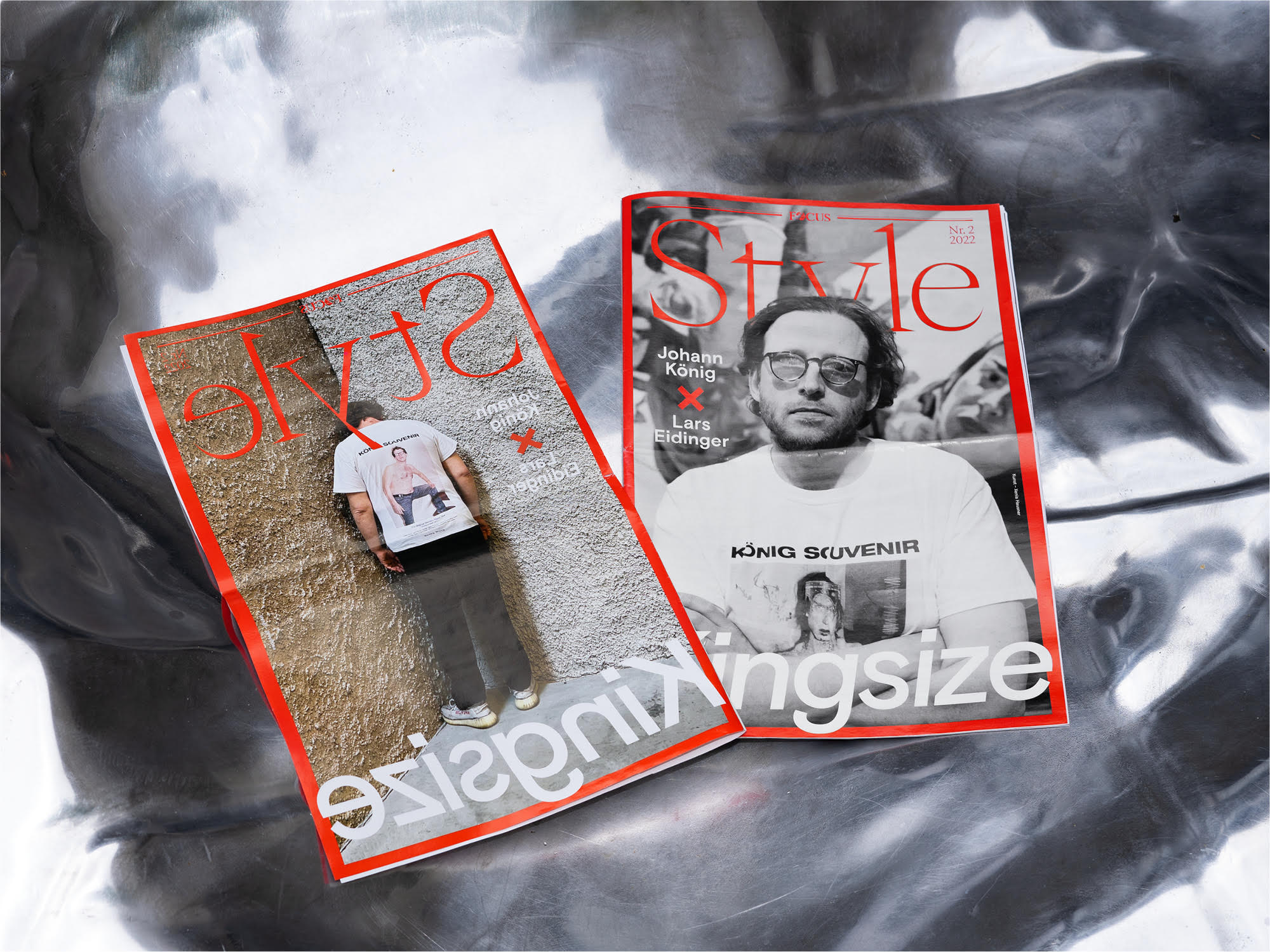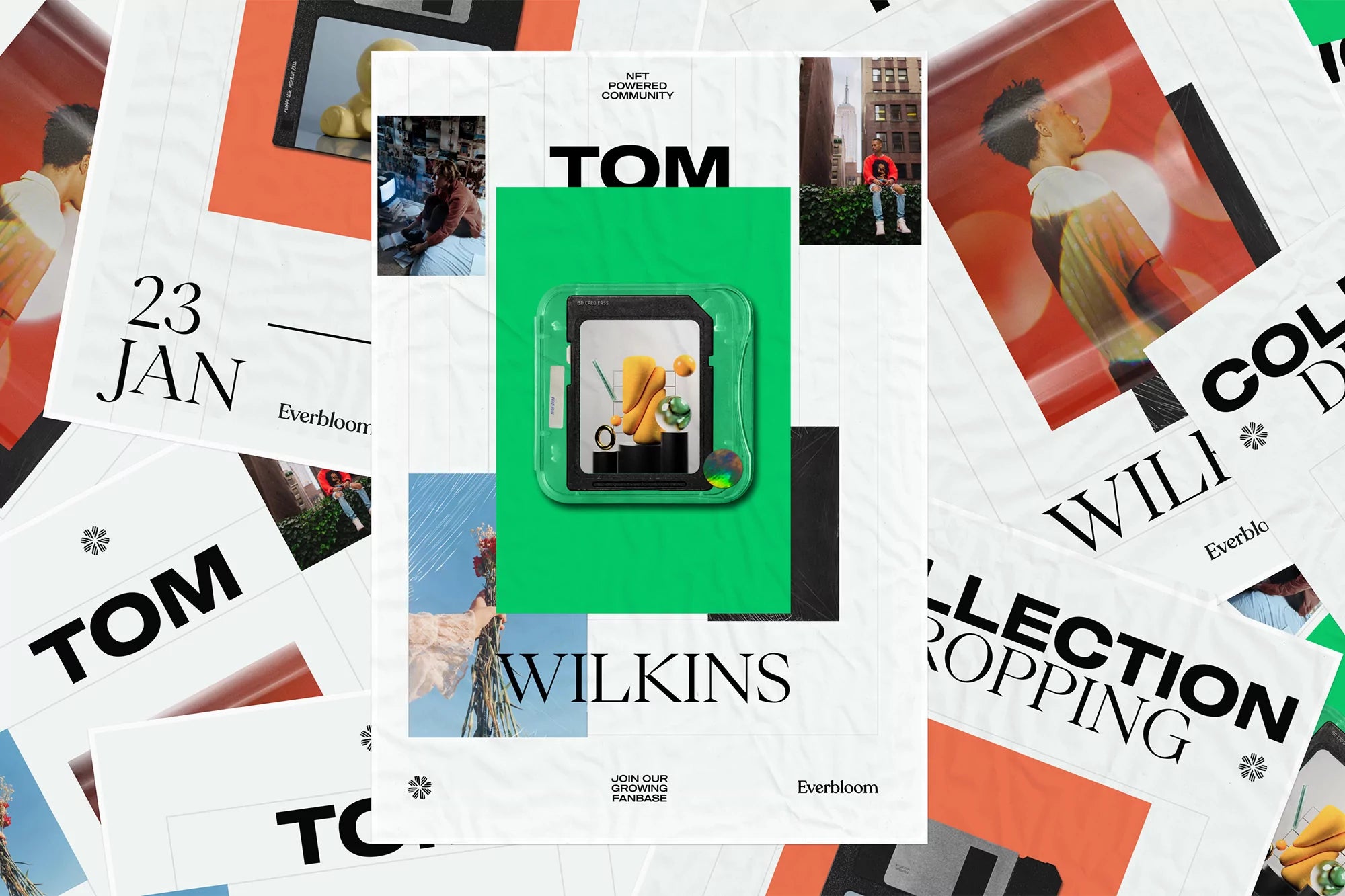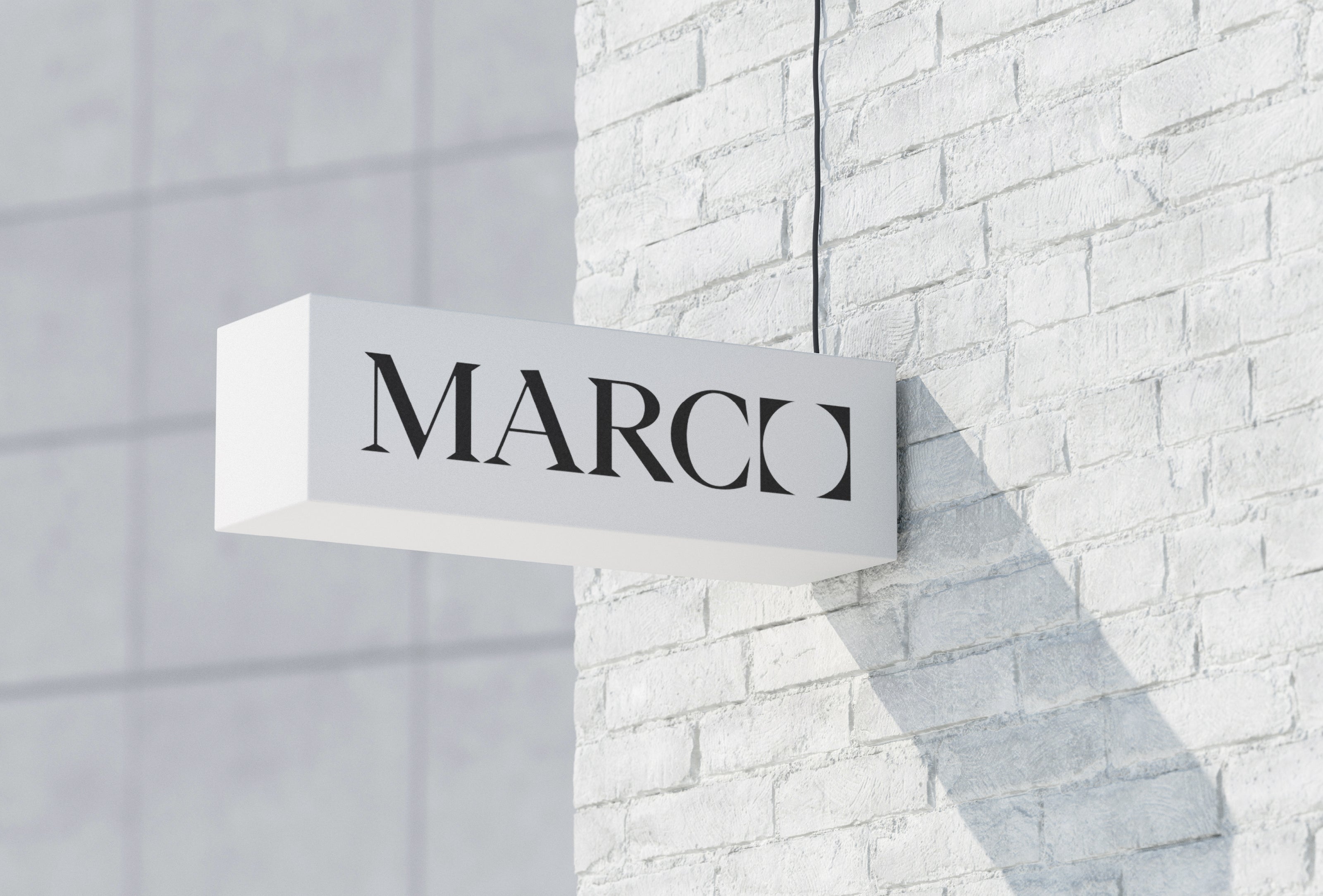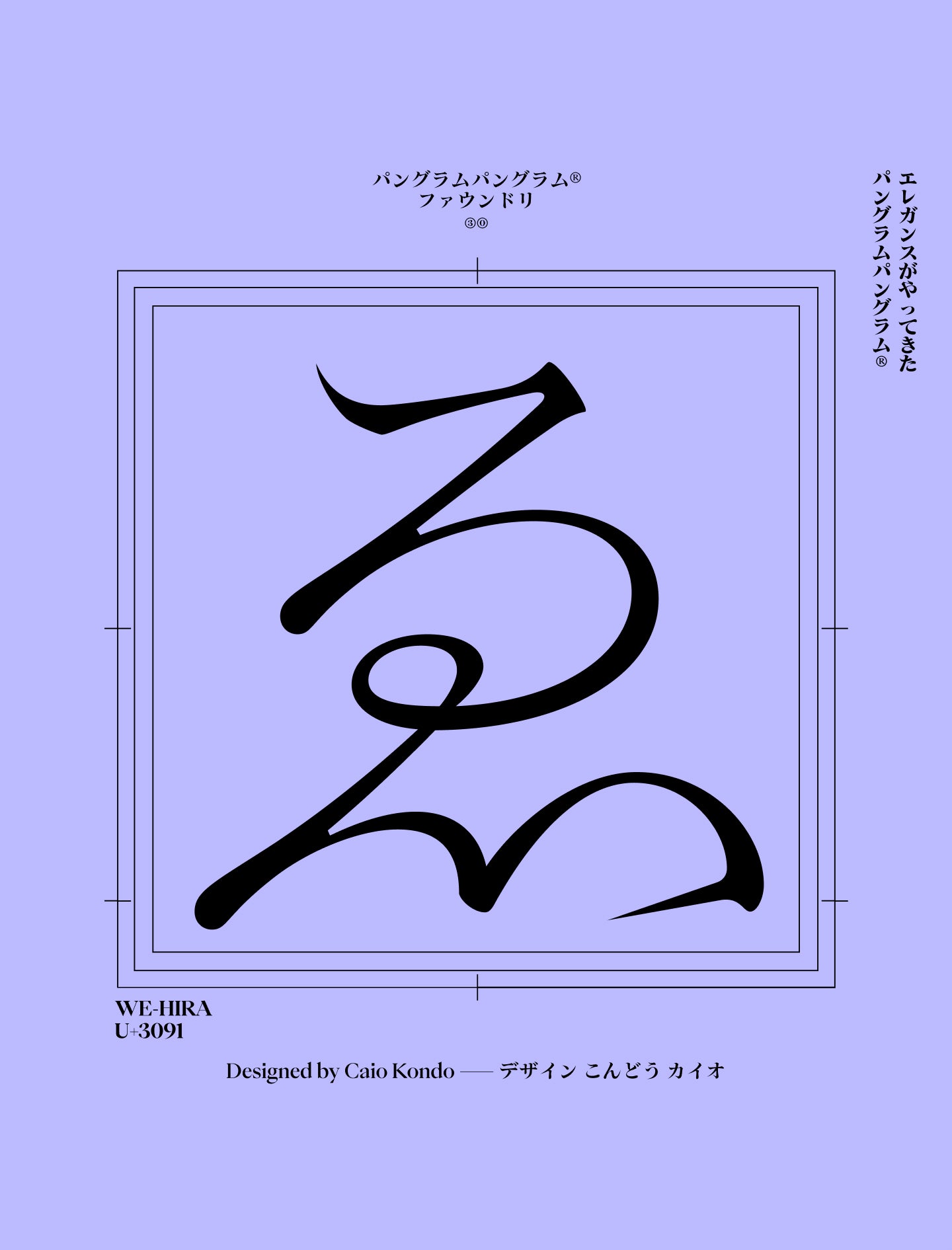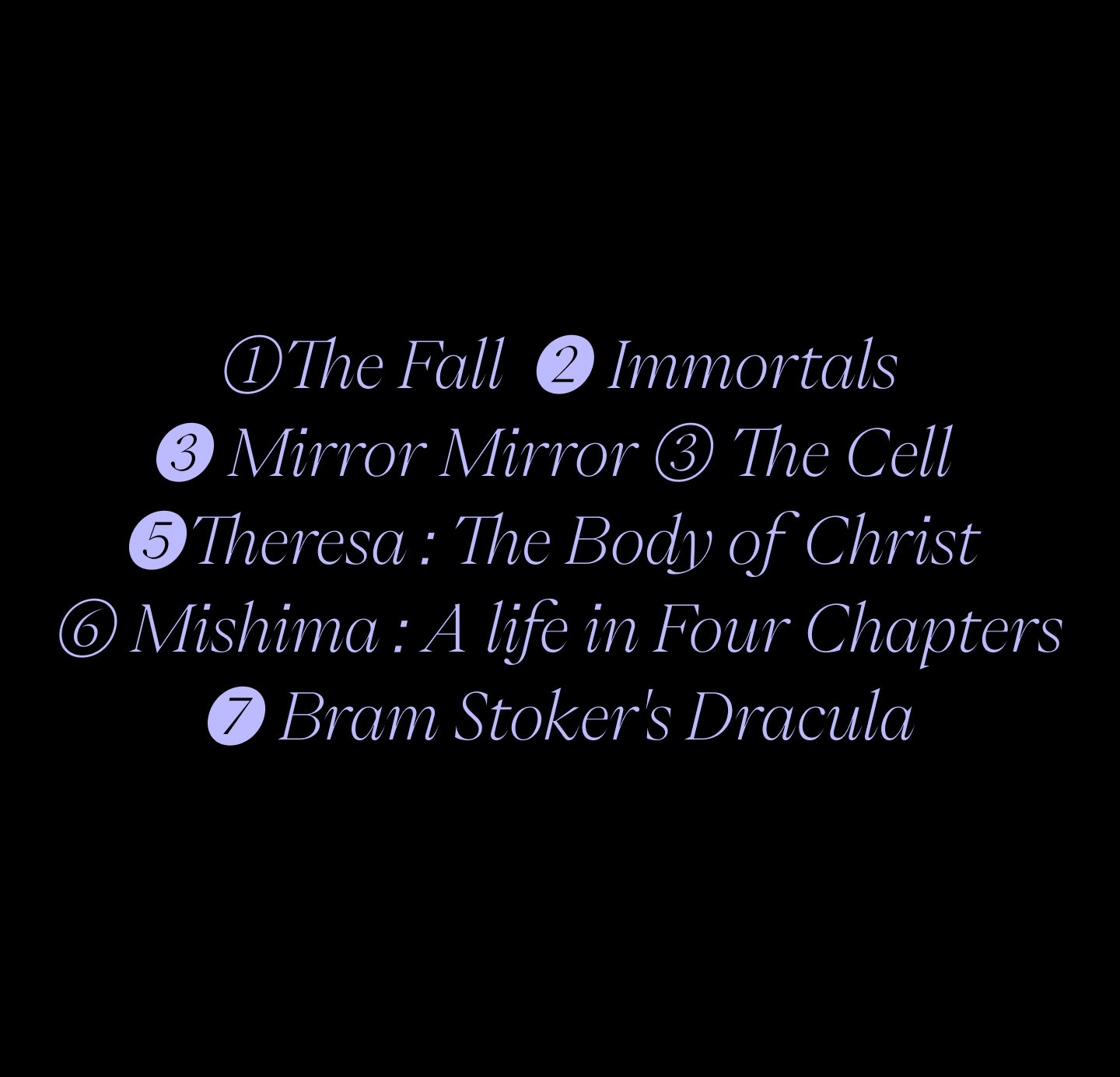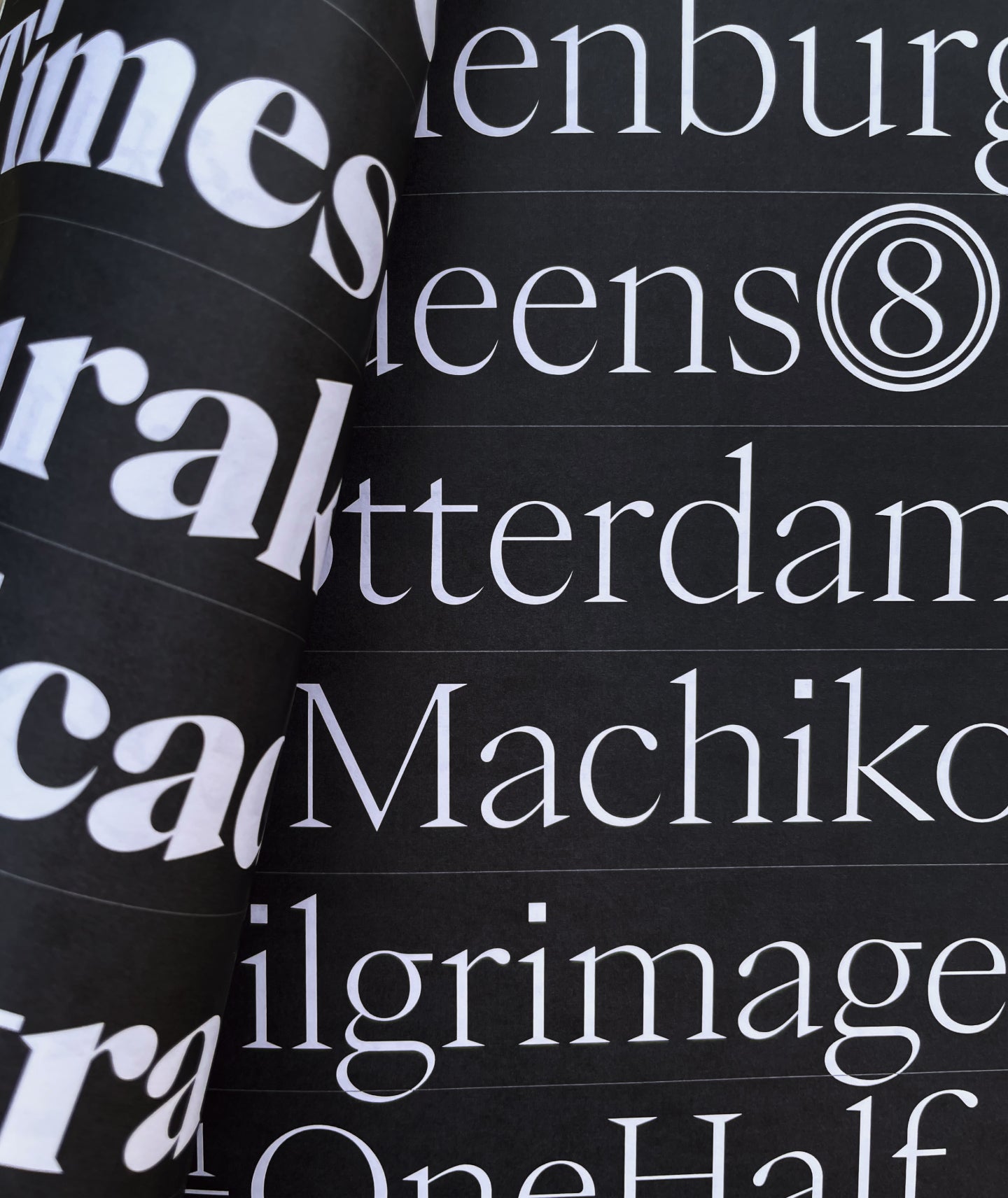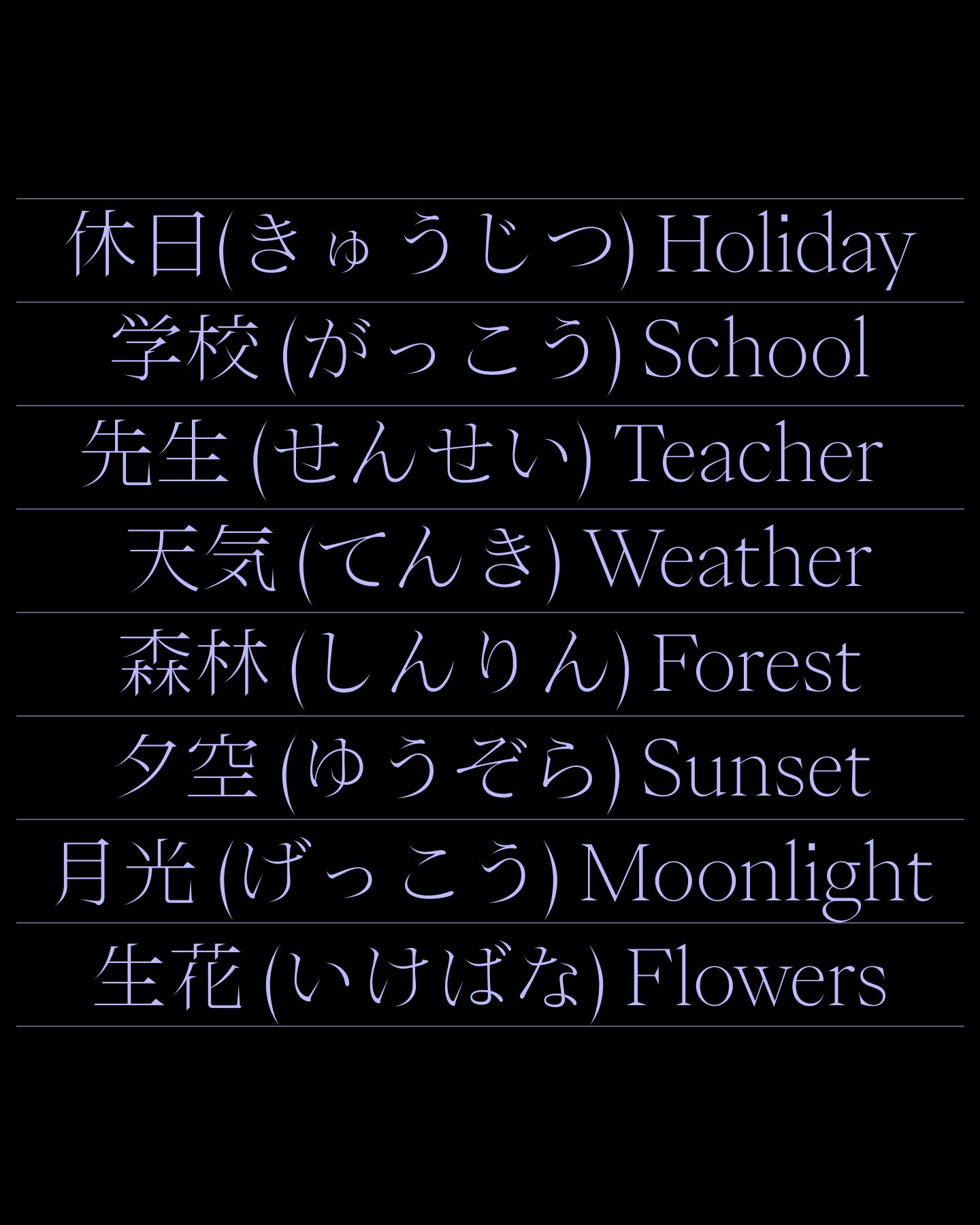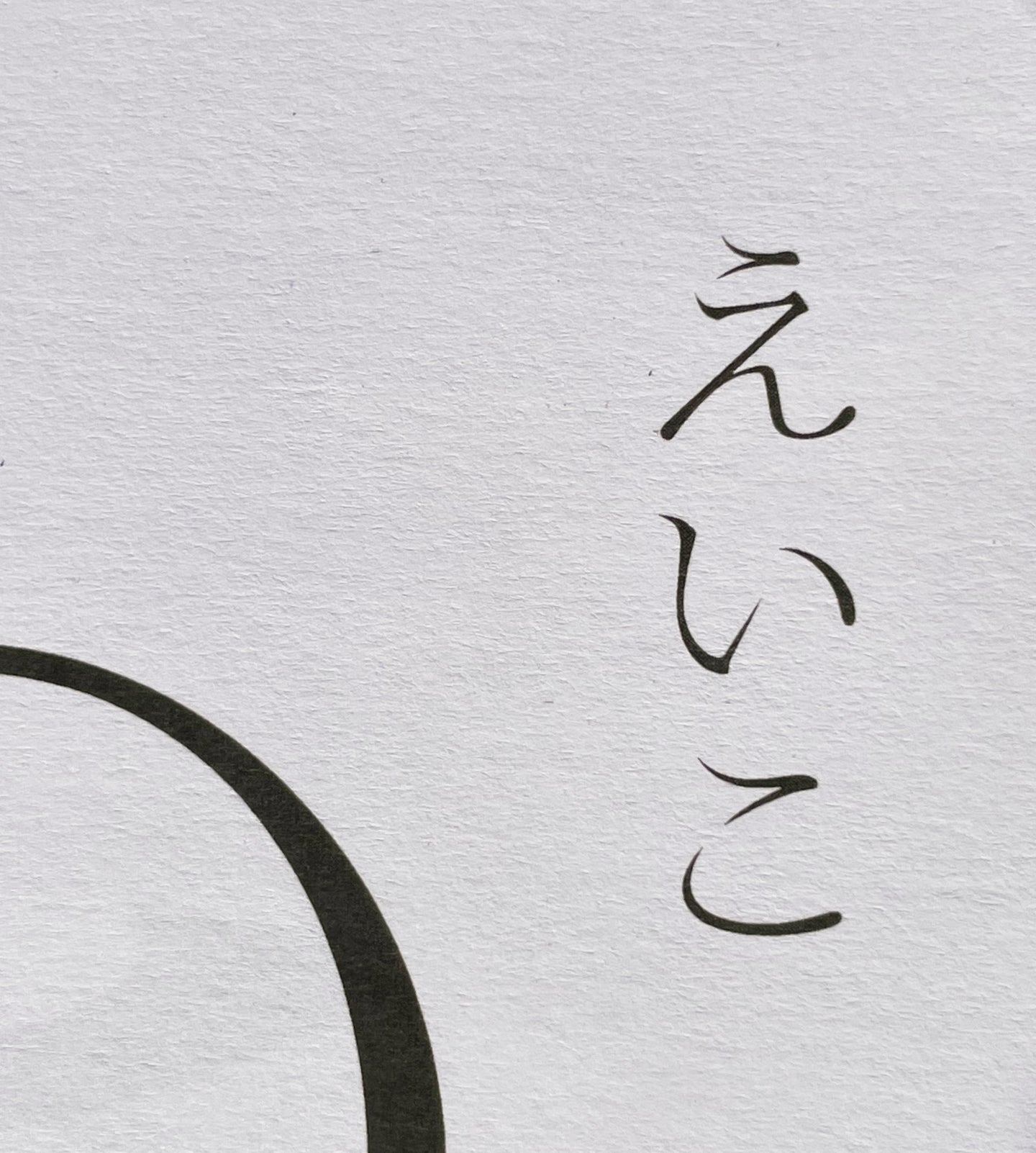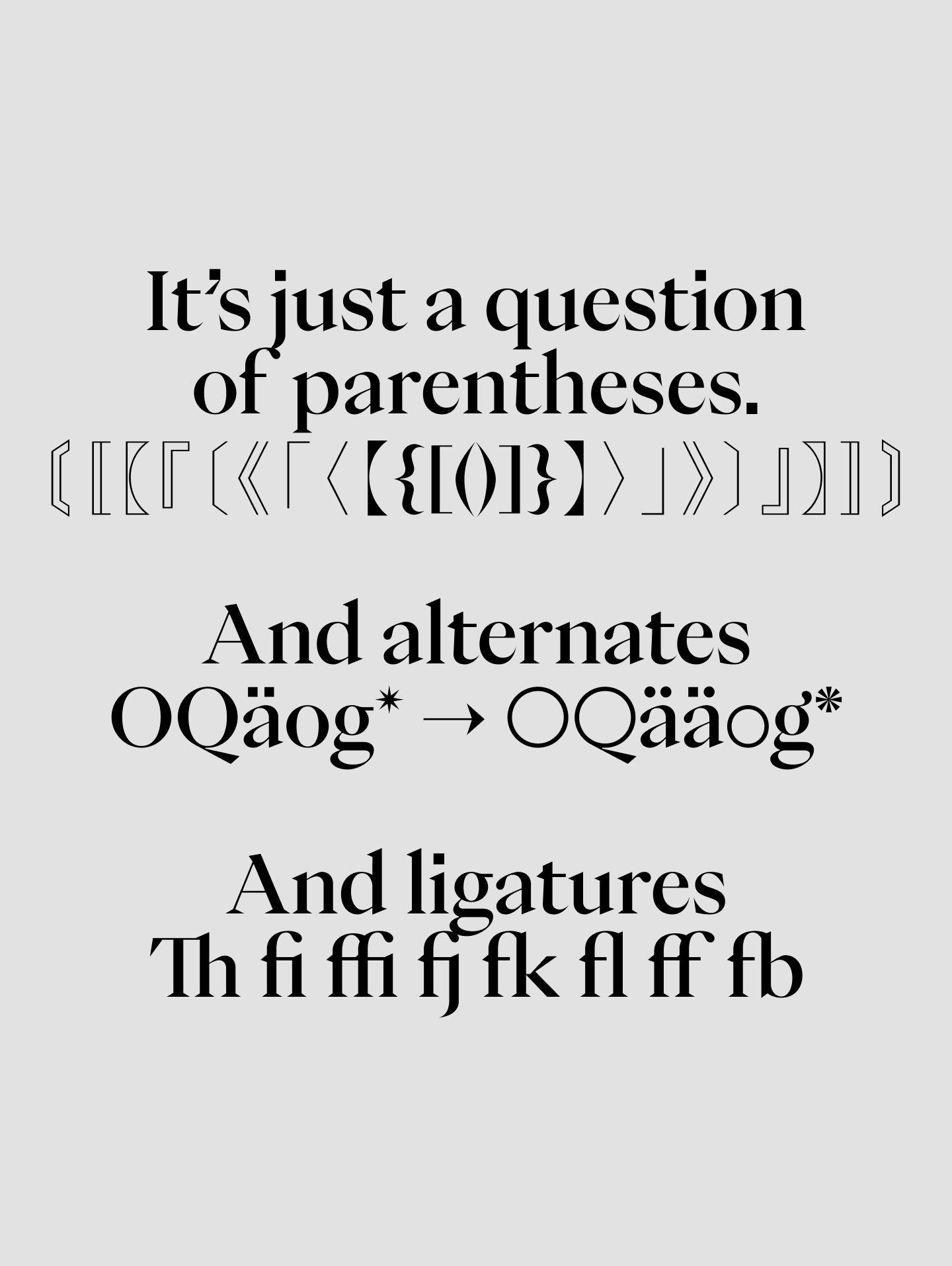
Eiko
Built as a high-contrast serif, Eiko gracefully balances beauty and strength. It’s delicate without being fragile, expressive without being loud.
Eiko 瑛子
with Italics
Eiko's Features
A tribute in type.
Eiko is an indisputable statement of elegance and refinement. Every curves and bezier points were applied with a sense of purpose. It is inspired by the work of Eiko Ishioka, a multitalented Japanese artist, this typeface seeks to convey the same aspect of her work in these typographic explorations. It is an original serif font with high contrast, including the syllable alphabet kana, hiragana & katakana, it is ideal to pair with other kanji fonts of the Japanese mincho style.
Its resources include a large repertoire of Japanese punctuations, stylistic sets with circular and square numbers, vertical written, subscript and superscript numbers, mathematical symbols, meteorological symbols, ligatures, arrows and many alternates. And now: a new basic educational set with 81 kanjis and full italics!
16 Styles with 1,200 Glyphs each
Including Kana, Hiragana, Katakana & educational Kanji Support